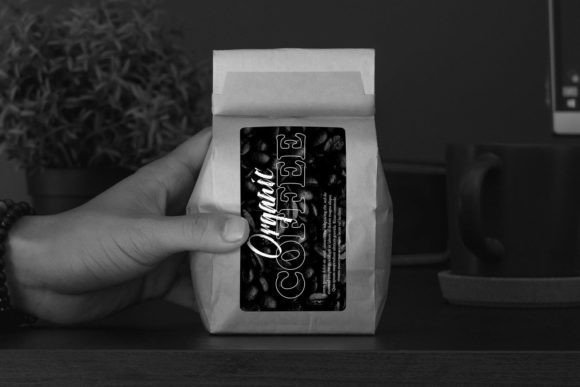
The Birth of a Unique Design
There’s nothing quite like the rush of creating something from scratch. It’s that moment when your ideas start flowing, and the possibilities seem endless. You’re brainstorming ideas for a new project, and suddenly, a spark of inspiration hits you. You grab your trusty Ruling pen and start sketching out your vision, letting your creativity shine through.
From these humble beginnings, the Colascript Font was born. This unique font is crafted with a Ruling pen and hand scratches, carefully processed to produce stunning vectors that can elevate any design. Whether you’re promoting a product, creating a logo, or designing a poster, the Colascript Font is the perfect addition to your toolkit.
As a designer, you know the importance of finding the right font to bring your vision to life. That’s where the Colascript Font comes in – a versatile and eye-catching font that’s perfect for a wide range of applications, from social media to book covers and packaging design.
Colascript Font Key Features
- Font Family: Colascript Font is a unique, high-quality font family designed for various applications, including digital displays, print media, and signage.
- Character Set: Includes a comprehensive set of characters, including Latin, Cyrillic, Greek, and extended characters for multilingual support.
- Resolution: Optimized for high-resolution displays, including 4K and 5K resolutions, ensuring crisp and clear text rendering.
- Unique Characteristics: Colascript Font features a distinctive, modern design with a high x-height, making it easily readable in various environments and lighting conditions.
Colascript Font Review
Overall, I have mixed feelings about Colascript Font. On one hand, there are some great features that make it a solid choice for certain projects. ✨ For example, the font’s bold and italic weights look great, especially when used together in headings and body text. The font’s clean and modern design also makes it easy to read, even at smaller font sizes. ✨ Additionally, the font supports a wide range of languages, making it a great option for multilingual projects.
- Modern and clean design
- Supports multiple languages
- Bold and italic weights available
- Regular weight feels thin
- No condensed or extended styles available
For best results, use Colascript Font for headings and titles to add a touch of sophistication to your design.
Use Colascript Font for creating custom typography and adding a unique touch to your designs.
Use Colascript Font for creating engaging presentations and documents that stand out from the crowd.
1. Use Colascript Font in combination with bold and italic styles to add emphasis to your text.
2. Experiment with different font sizes and line spacings to create a unique visual hierarchy.
3. Pair Colascript Font with other fonts to create a harmonious typography.
Common Use Cases for Colascript Font
1. Branding and identity design
2. Editorial and publishing design
3. Advertising and marketing materials
4. Digital products and software design
Alternatives to Colascript Font for Designers
Montserrat Font is a sans-serif font designed for urban environments. It’s perfect for digital products, websites, and mobile apps where readability is crucial. Montserrat is more geometric and modern compared to Colascript Font, making it ideal for futuristic designs.
Q: Can I use the Colascript Font for digital products, such as mobile apps and websites?
Yes, the Colascript Font is optimized for digital use and can be used for mobile apps, websites, and other digital products. It is designed to be clear and legible at various screen resolutions and sizes.
Q: What is the recommended line height for the Colascript Font?
The recommended line height for the Colascript Font is 1.2-1.5 times the font size. This will ensure that the text is easy to read and that the lines of text do not run together.